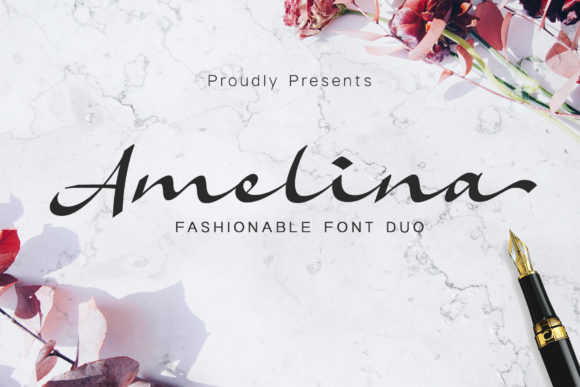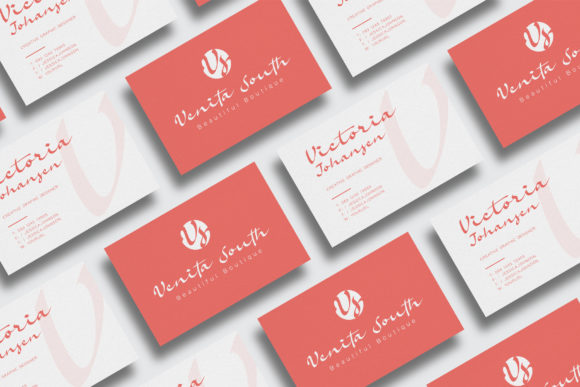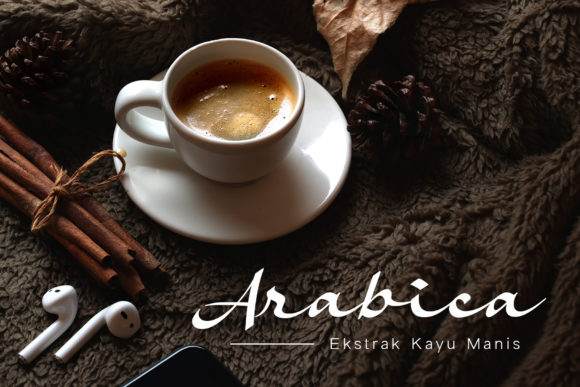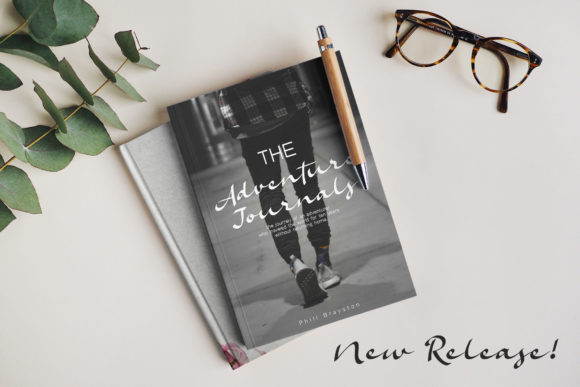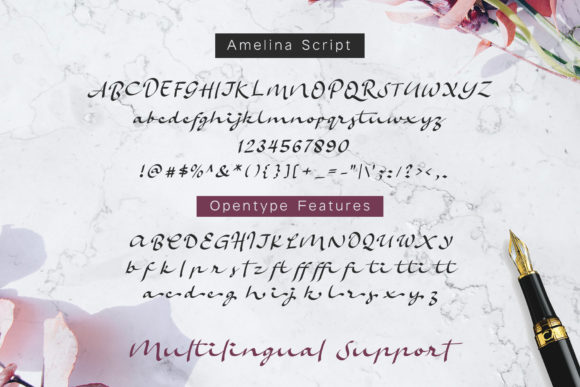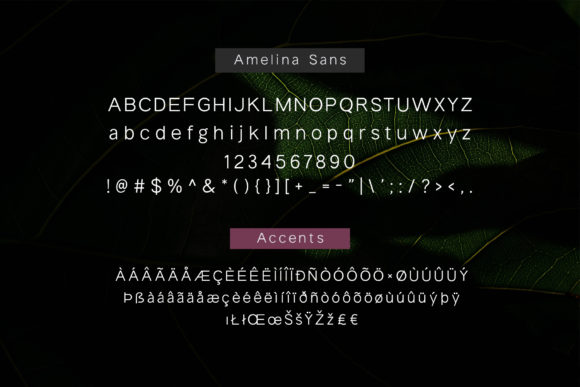
About Amelina Font
Amelina duo is a match made in heaven! It perfectly combines a beautiful script with a strong and cute sans serif. Combining these two fonts on your next design will give a modern and outstanding feel. It will elevate a wide range of design projects to the highest level, be it branding, headings, wedding designs, invitations, signatures, logos, labels, and much more!
This font is PUA encoded which means you can access all of the cute glyphs and swashes with ease! It also features a wealth of special features including alternate glyphs and ligatures